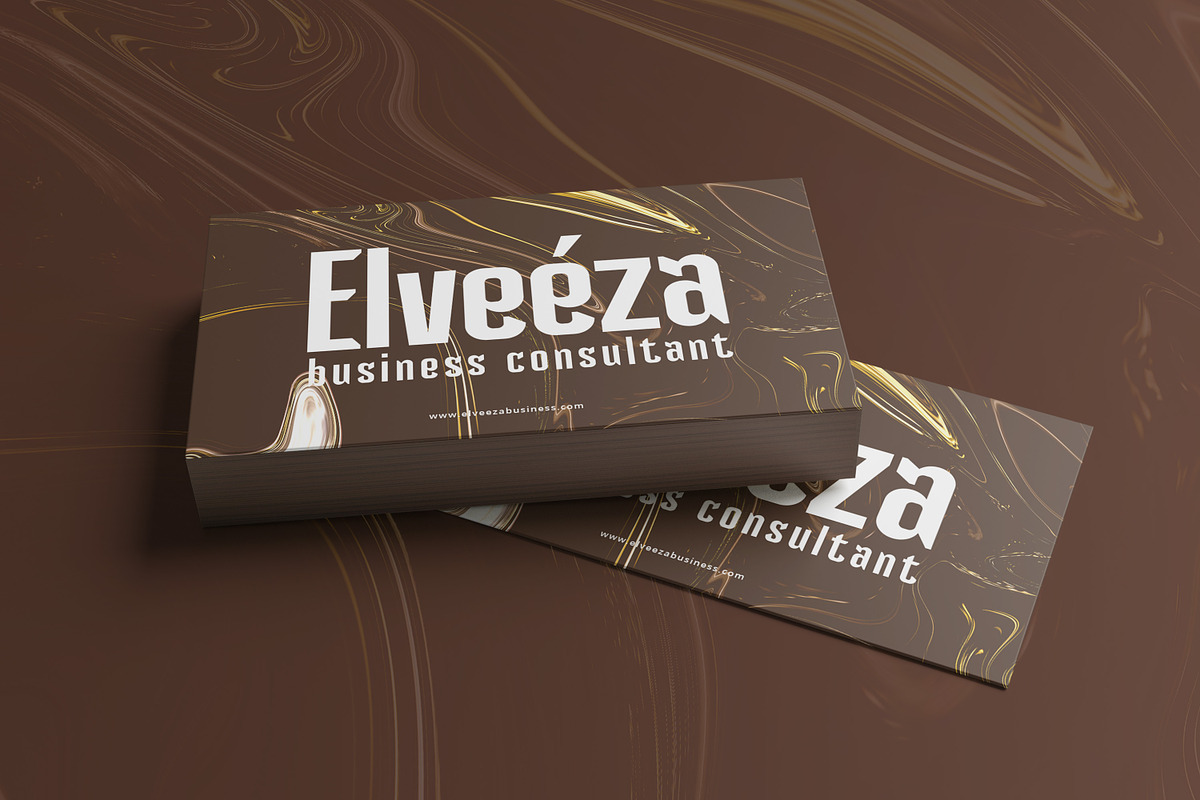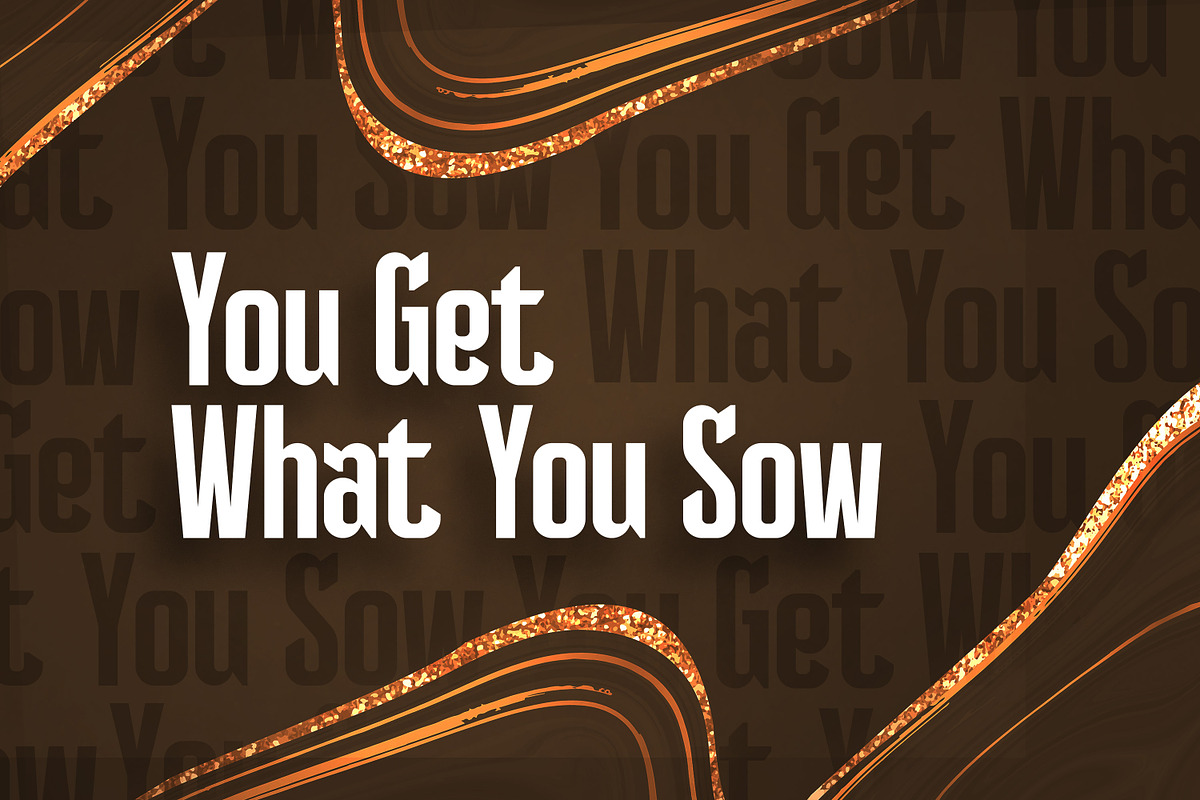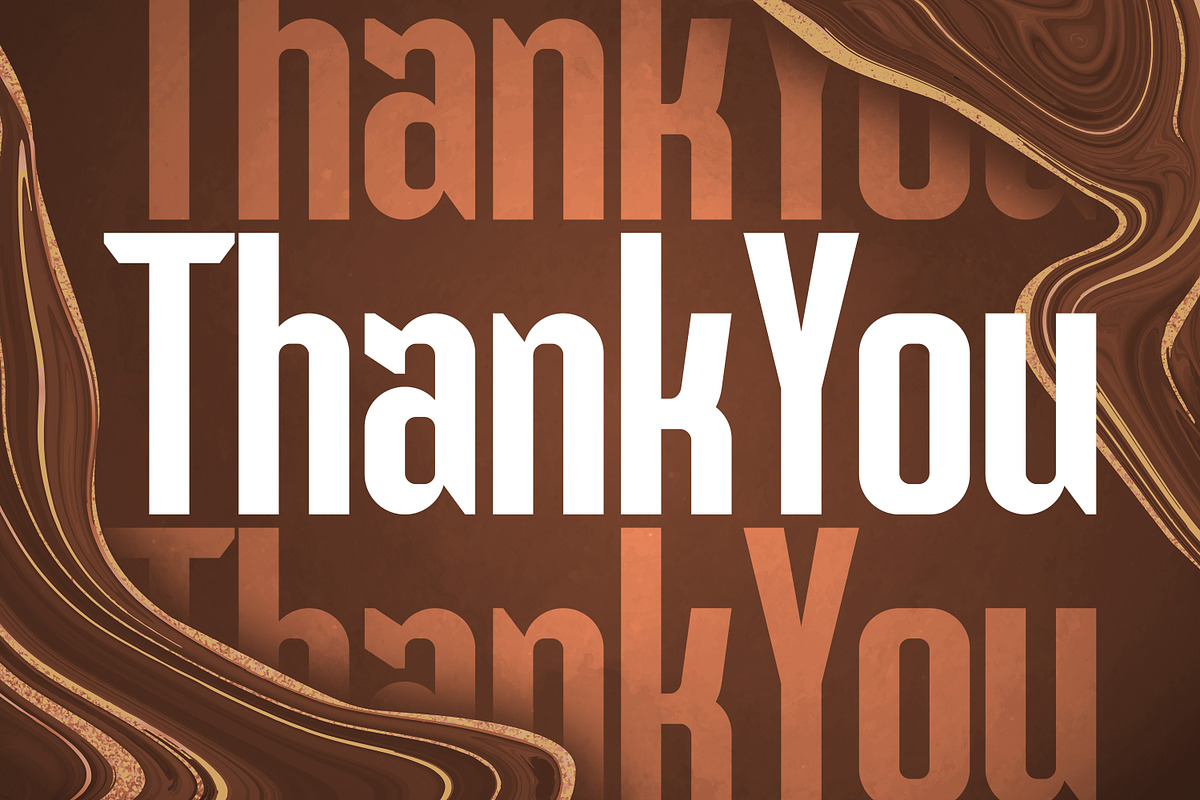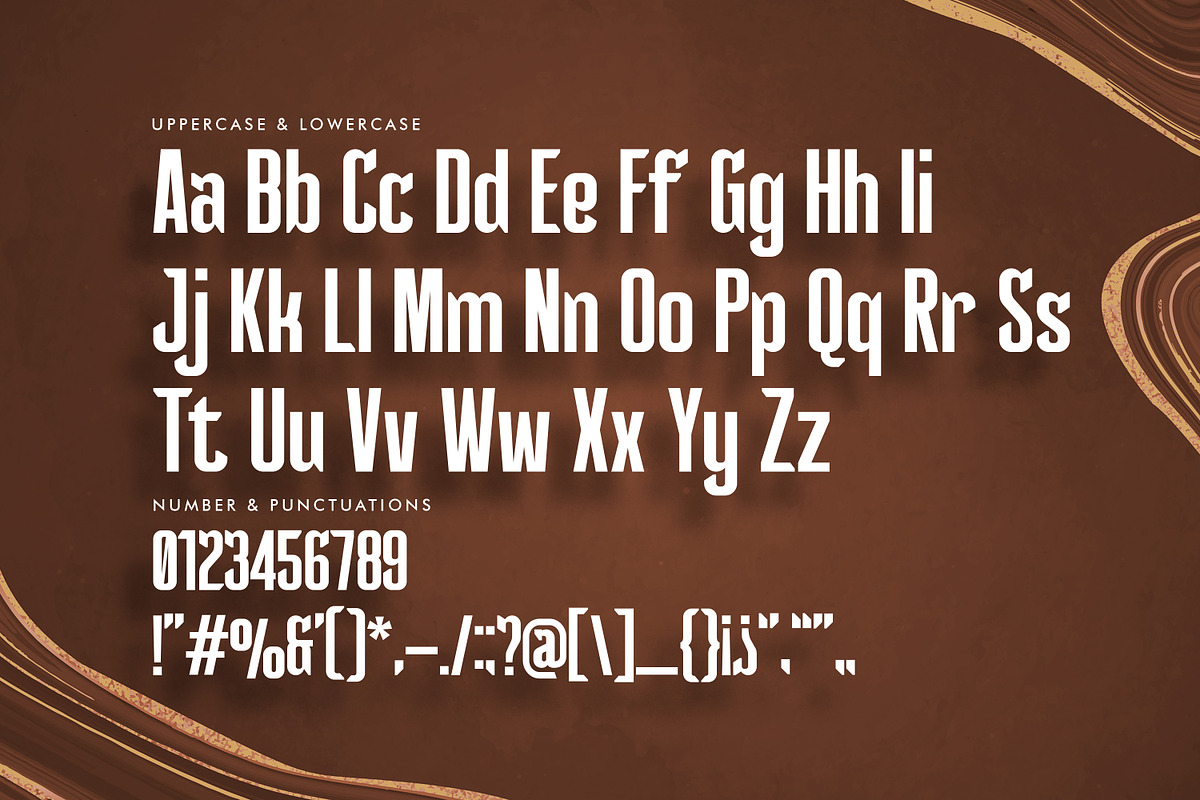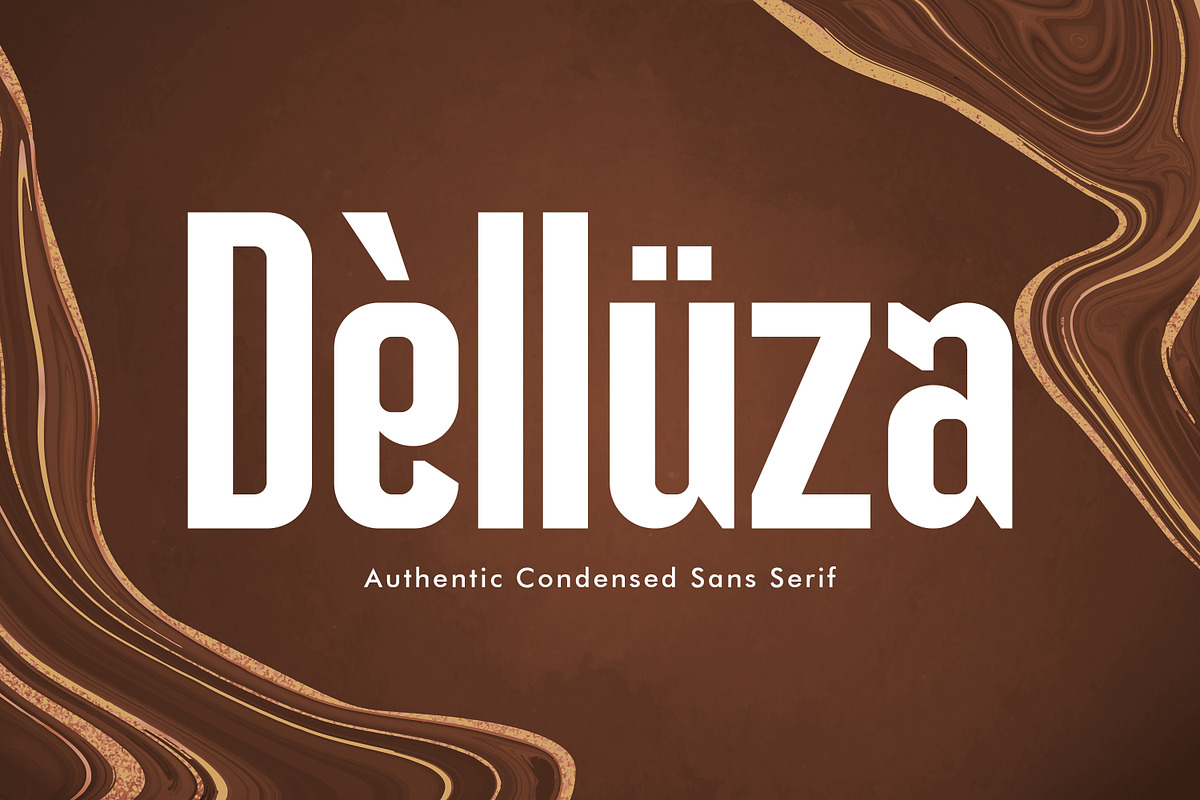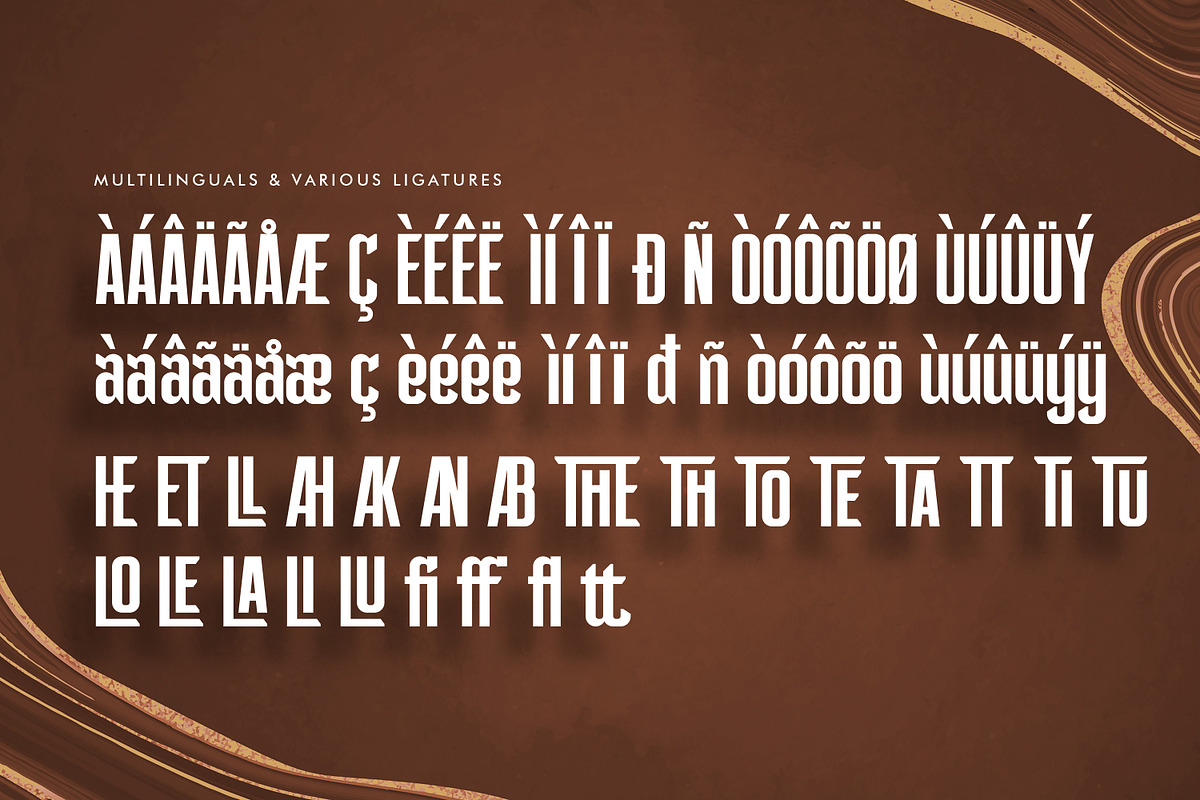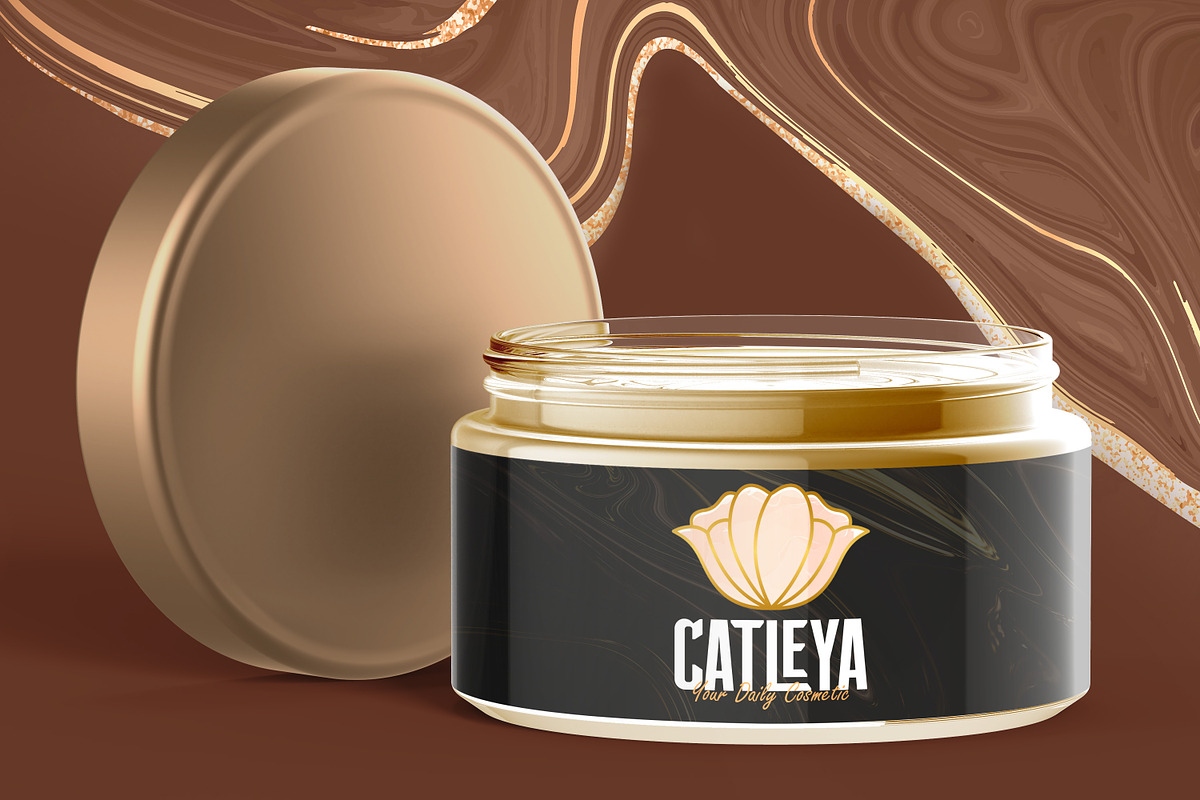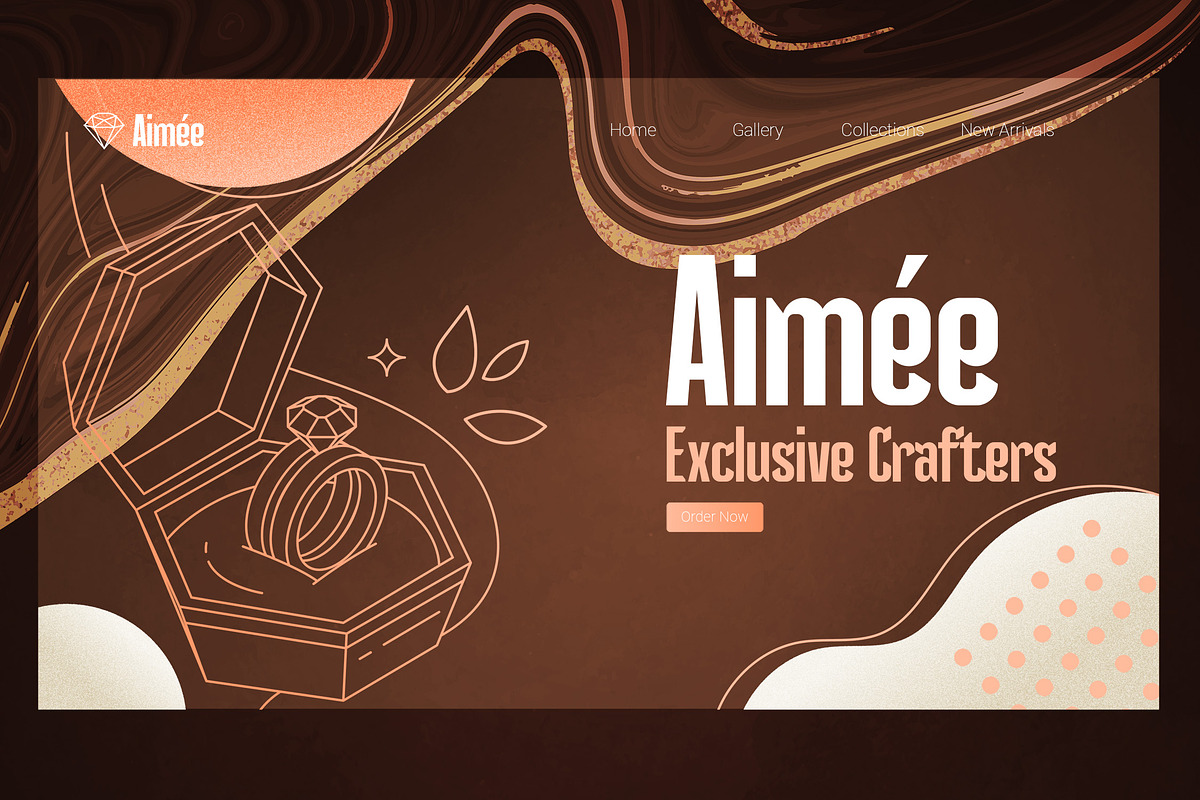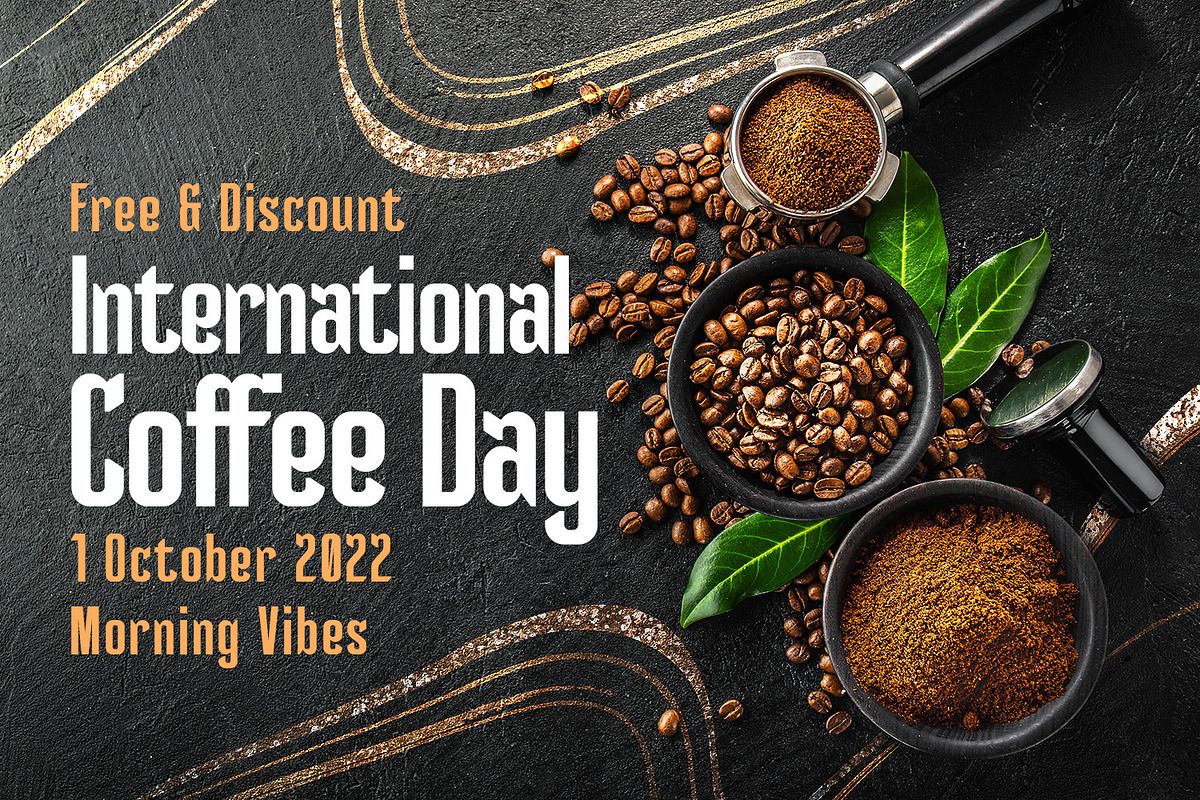
Delluza - Authentic Condensed Sans
Introducing Delluza - Authentic Condensed Sans with strong and challenging nuances. very suitable for the title, typography, magazines, brochures, packaging and much more for your design needs, making your designs more modern and professional